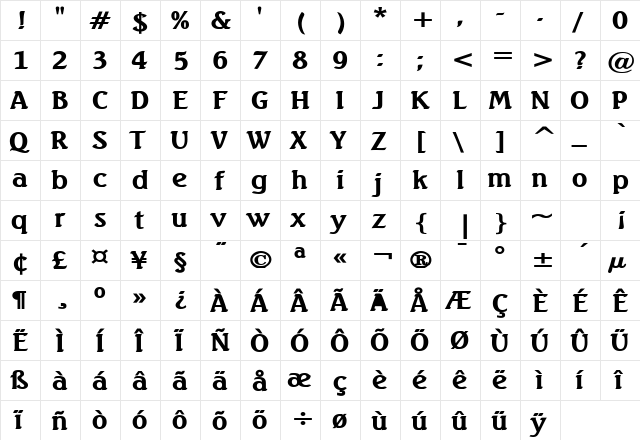
Beach Wide Bold Font Preview
Beach Wide Bold
Design Context for Beach Wide Typeface
Beach Wide takes a measured approach to typography — its balanced proportions and neutral character make it a reliable workhorse for both digital and print work. The heavy weight commands attention and anchors typographic hierarchies.